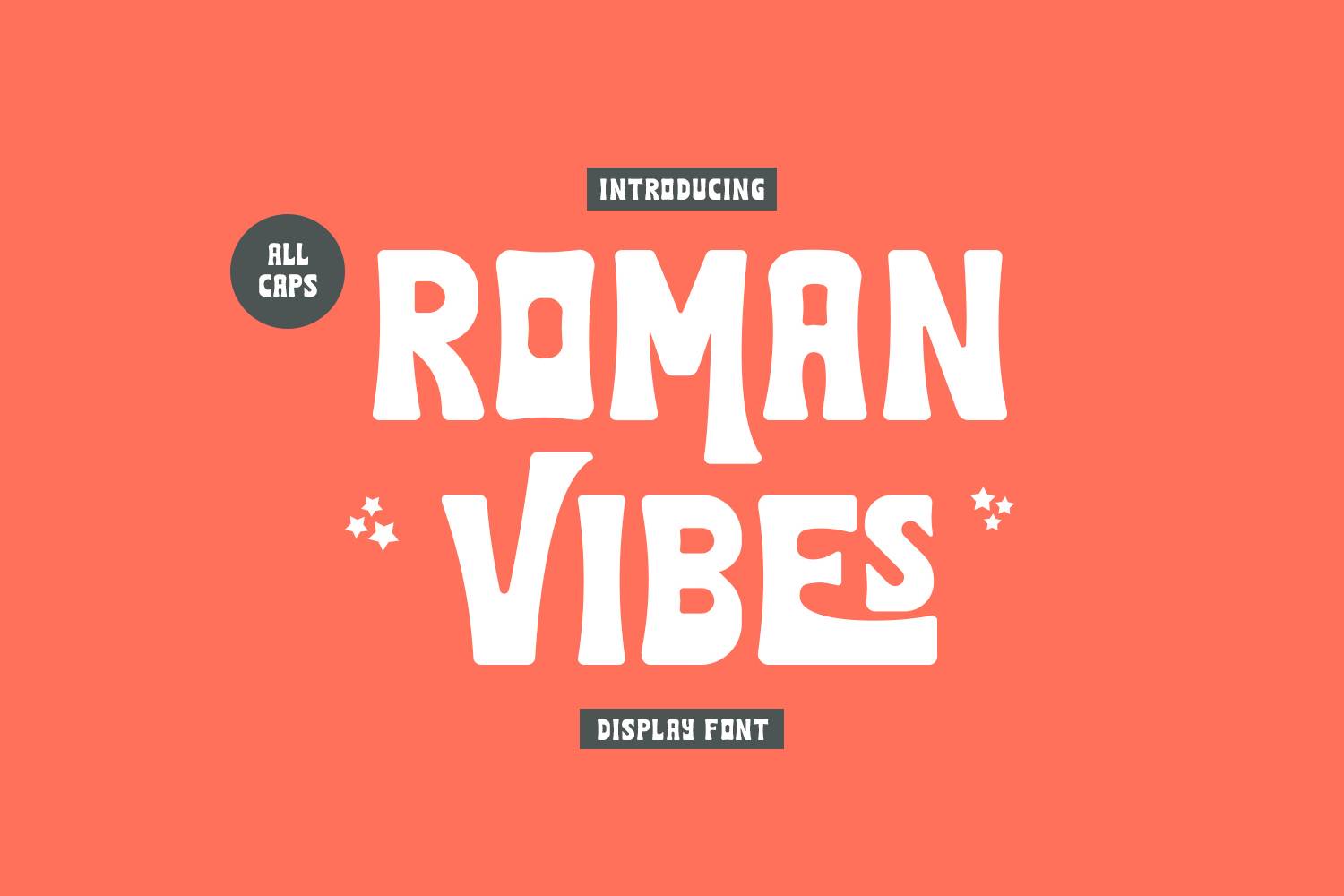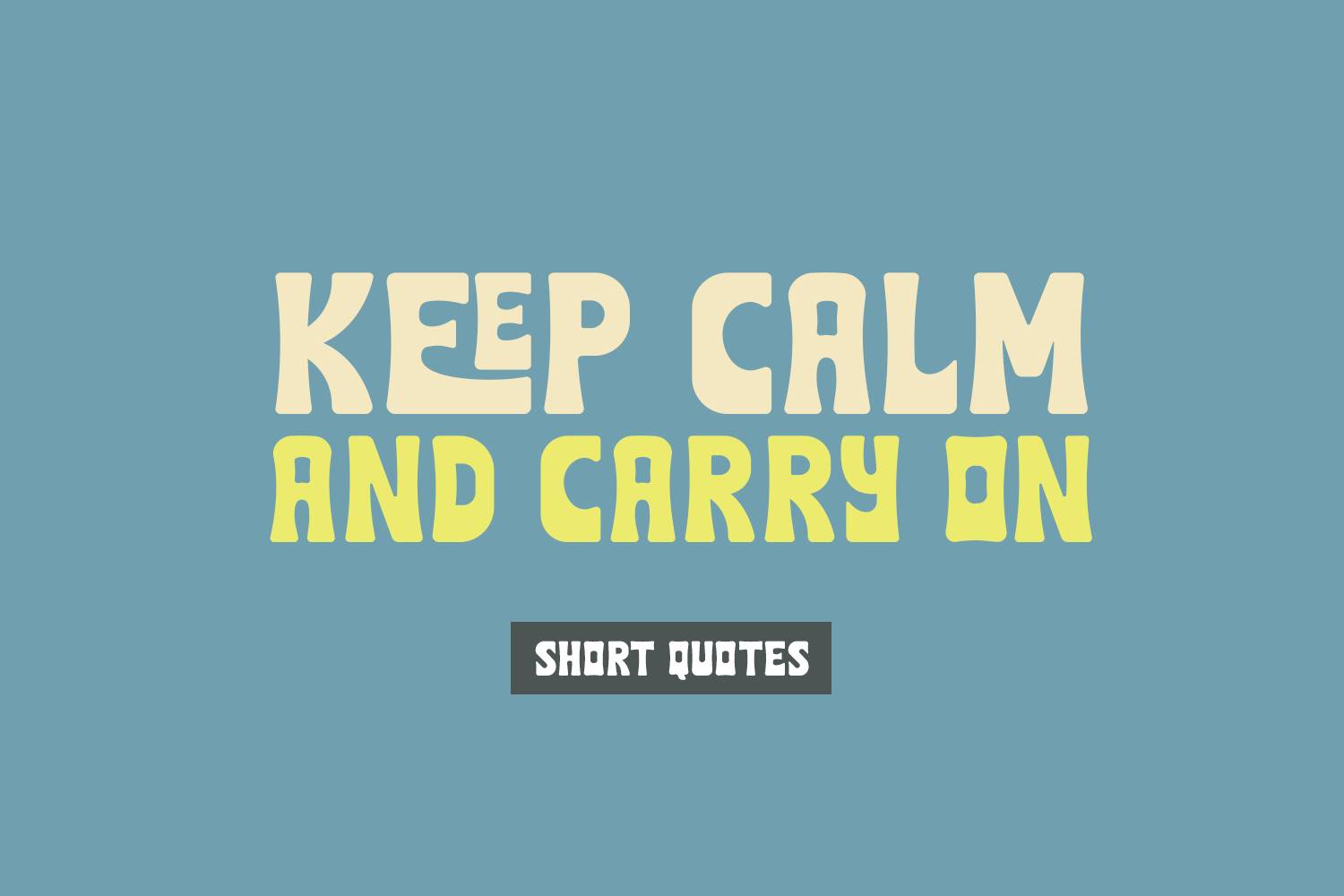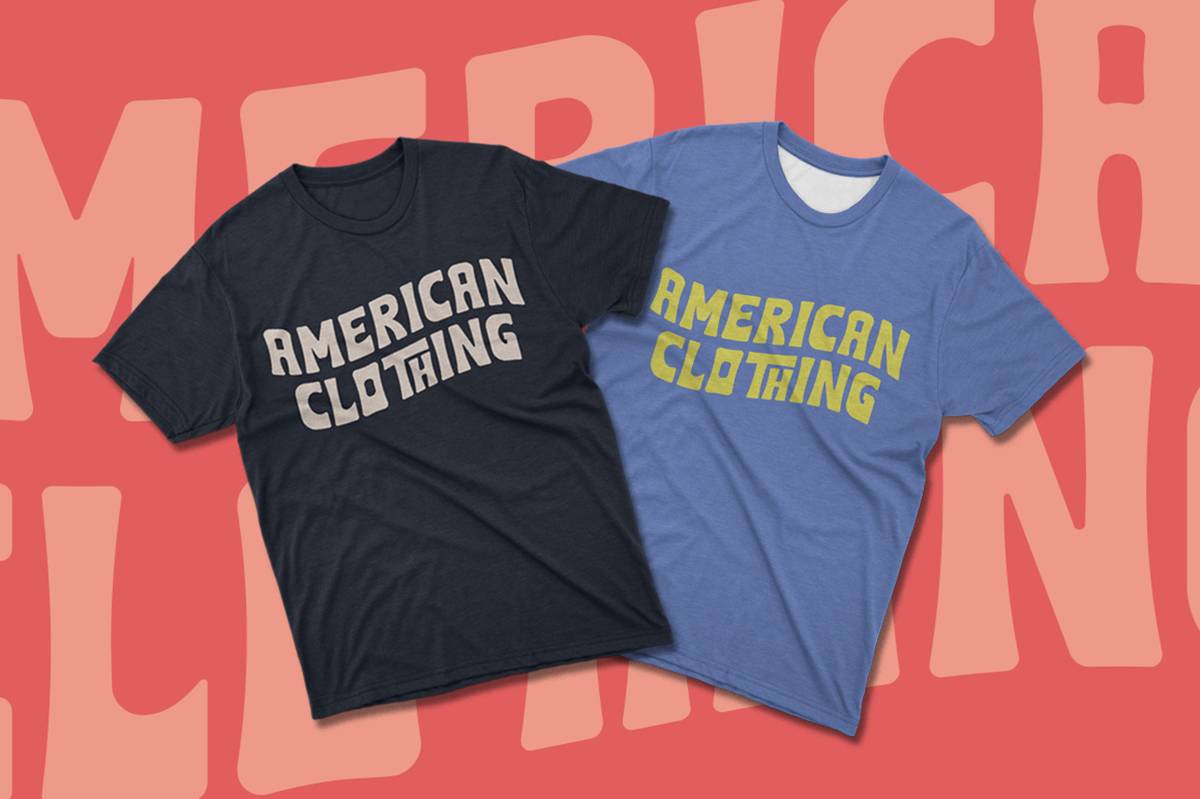
Roman Vibes is a bold, playful sans serif font with a fun, slightly retro feel created by its rounded, uneven letterforms and chunky strokes. Its strong, wide characters with a casual irregularity make it perfect for eye-catching headlines, posters, and branding that wants to convey energy and a friendly, vintage vibe. This font works well in creative and informal design contexts where personality and a warm, approachable look are key.
Roman Vibes Font
About Roman Vibes Font